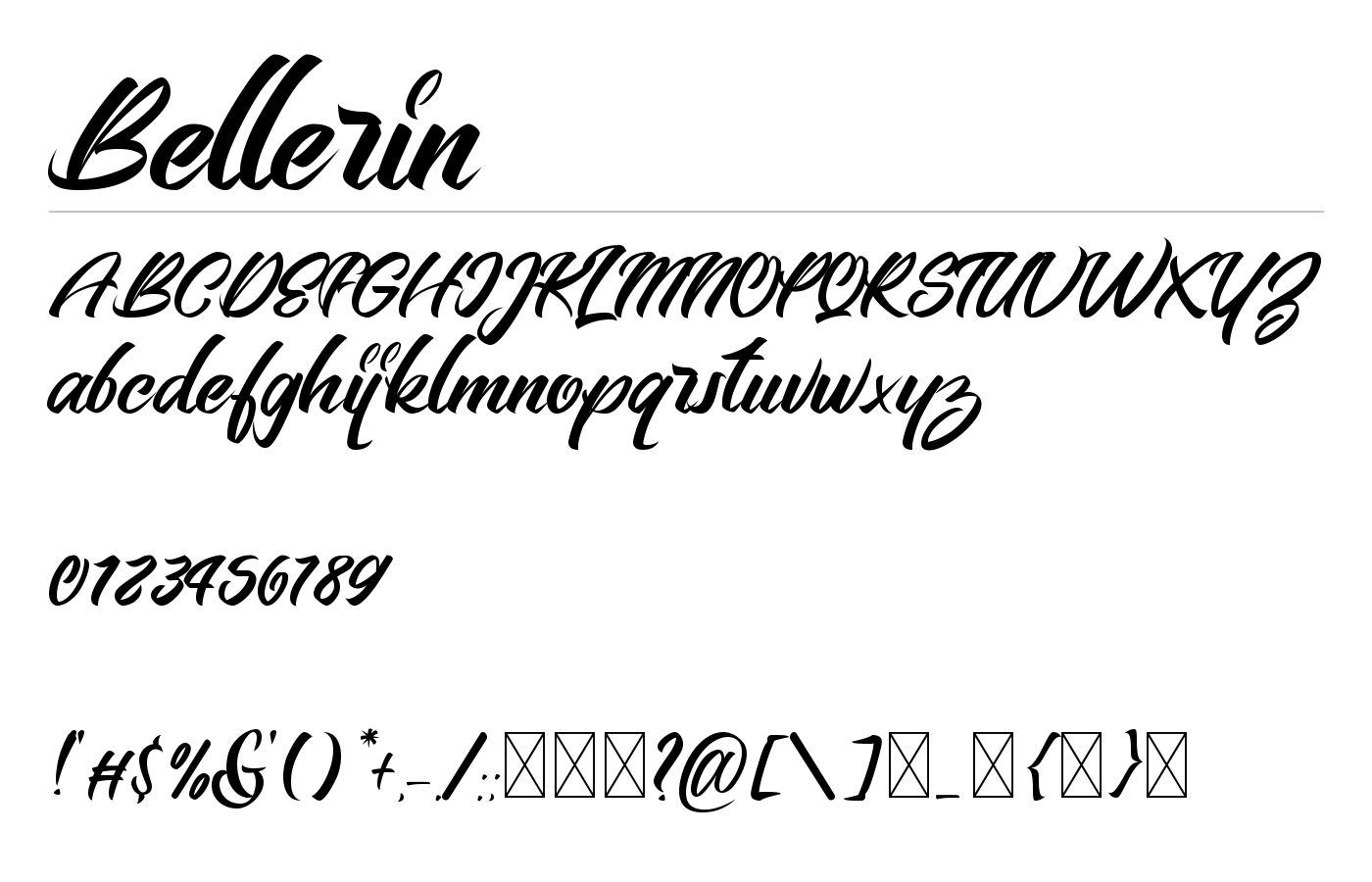
Bellerin is a bold, elegant script font that exudes a lively, handwritten charm with smooth, flowing strokes and a medium-to-high contrast. Its stylish, slightly condensed letterforms and distinctive swashes make it perfect for fashion branding, invitations, logos, and eye-catching headlines where a sophisticated yet playful touch is desired. This font balances readability with flair, making it ideal for designs that want to convey personality and elegance.
Bellerin Font